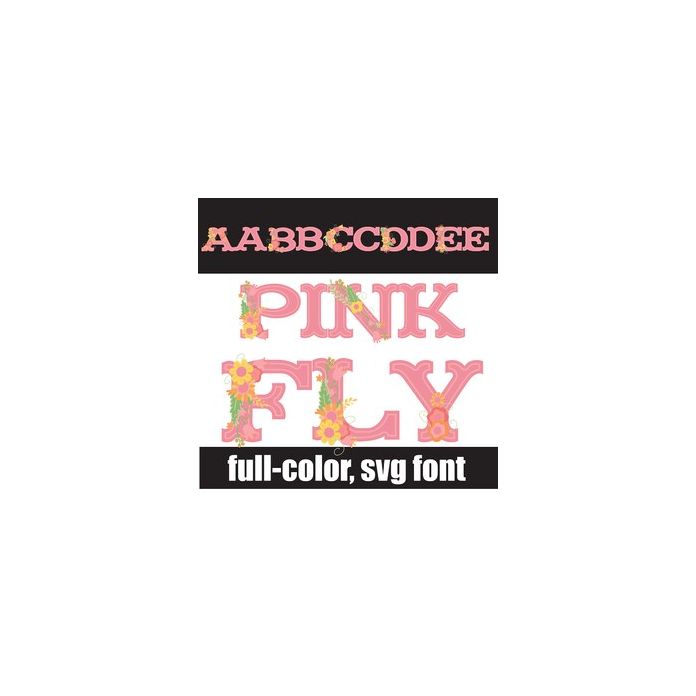
This pretty, serif font features spring, pink lettering with an array of pastel florals. There is an alt case w/ additional colors you can access through your system or Silhouette's glyph map.